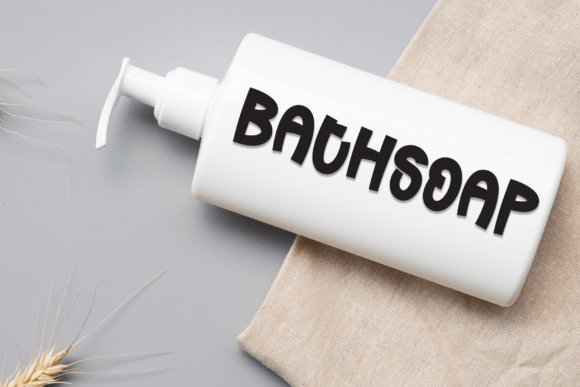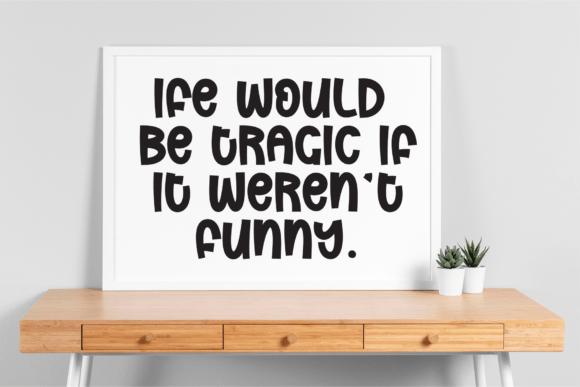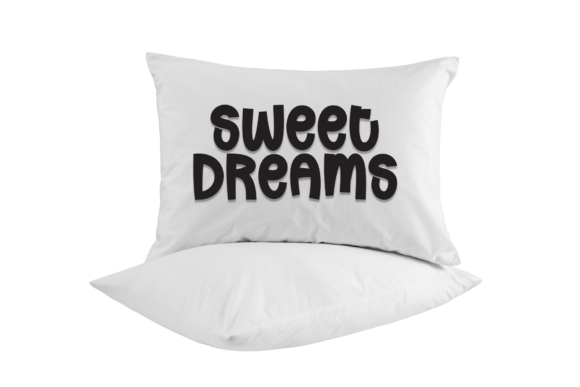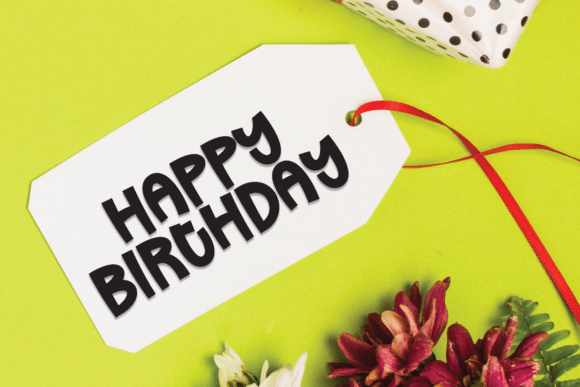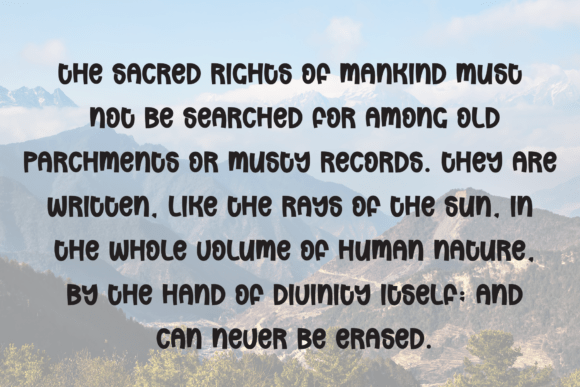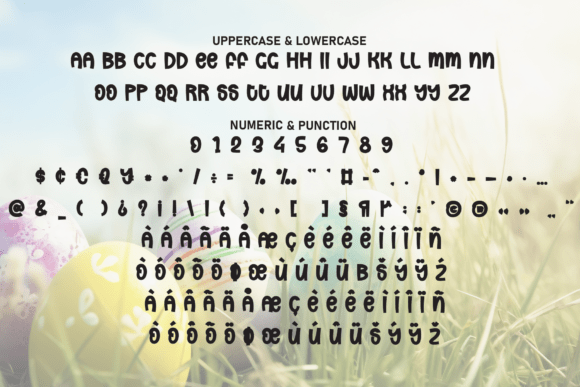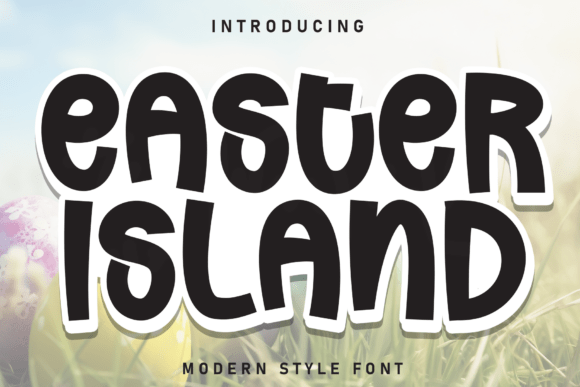
Easter Island Font: Adding a Personal Touch to Your Designs
In the world of typography, fonts play a crucial role in conveying the tone and personality of a message. For designers and crafters looking to add a personal, heartfelt touch to their work, the Easter Island Font is an excellent choice. This handwritten display font brings charm and character to every letter, making it perfect for a variety of creative projects.
The Charm of Handwritten Typography
The Easter Island Font is a beautiful example of handwritten typography, with its playful strokes and casual flow capturing the essence of authentic handwriting. Unlike generic, computer-generated fonts, this font adds a touch of warmth and whimsy to any design. Whether you’re working on a project for kids or creating a modern logo, the Easter Island Font is sure to bring a smile to your audience’s faces.
Perfect for Quotes, Greeting Cards, and Branding
One of the key benefits of the Easter Island Font is its versatility. This font is perfect for a wide range of applications, including:
- Quotes: Add a personal touch to your inspirational quotes and make them stand out with the Easter Island Font.
- Greeting cards: Create beautiful, one-of-a-kind greeting cards for special occasions like birthdays, weddings, and holidays.
- Branding: Use the Easter Island Font to add a touch of personality to your brand’s logo, packaging, or marketing materials.
Crafting for Kids and Designing Modern Logos
The Easter Island Font is an excellent choice for crafters and designers working on projects for kids. Its playful, whimsical nature makes it perfect for:
- Children’s party invitations and decorations
- Kids’ book titles and illustrations
- Educational materials and worksheets
On the other hand, designers can use the Easter Island Font to create modern, eye-catching logos that stand out from the crowd. Its unique, hand-drawn style makes it perfect for:
- Startup logos and branding
- Food and beverage packaging
- Fashion and lifestyle branding
Adding Warmth and Whimsy to Your Work
The Easter Island Font is more than just a font – it’s a way to add a personal touch to your designs. Its unique characteristics and playful style make it perfect for:
- Creating a sense of nostalgia and warmth
- Adding a touch of humor and whimsy
- Conveying a sense of friendliness and approachability
Tips for Using the Easter Island Font
To get the most out of the Easter Island Font, here are a few tips to keep in mind:
- Use it sparingly: While the Easter Island Font is beautiful, it can be overwhelming if used excessively. Use it to highlight key messages or add a personal touch to your design.
- Pair it with other fonts: Experiment with pairing the Easter Island Font with other fonts to create a unique and visually appealing combination.
- Adjust the size and color: Play around with different sizes and colors to find the perfect combination for your design.
The Easter Island Font is a versatile and charming handwritten display font that’s perfect for designers and crafters looking to add a personal touch to their work. With its playful strokes and casual flow, it captures the essence of authentic handwriting and adds warmth and whimsy to any design. Whether you’re working on a project for kids or creating a modern logo, the Easter Island Font is an excellent choice.